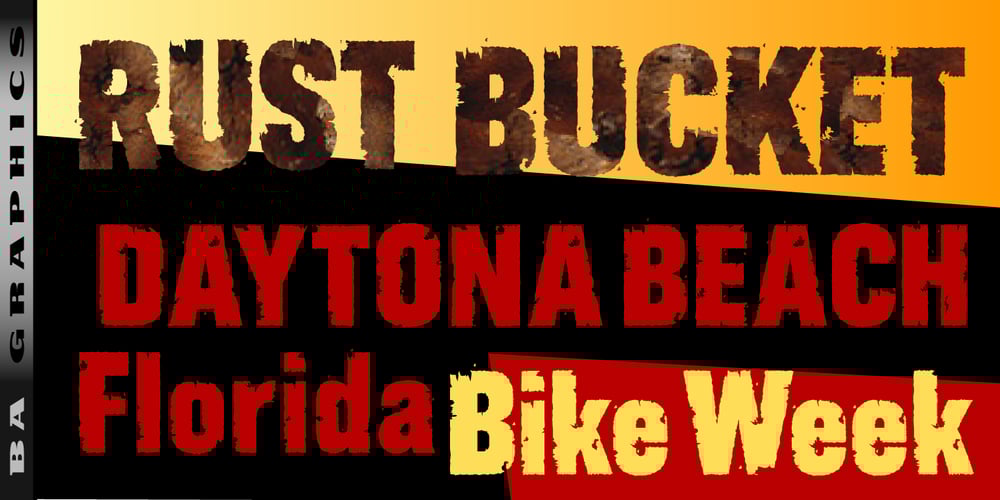
Rust Bucket
Rust Bucket font
Rust Bucket Font Family was designed by Bob Alonso and published by BA Graphics. Rust Bucket contains 1 styles and family package options. A mild grunge, a simple distressed gothic with just enough roughness to be cool.